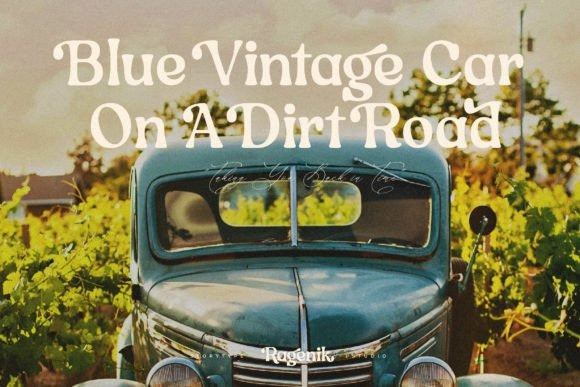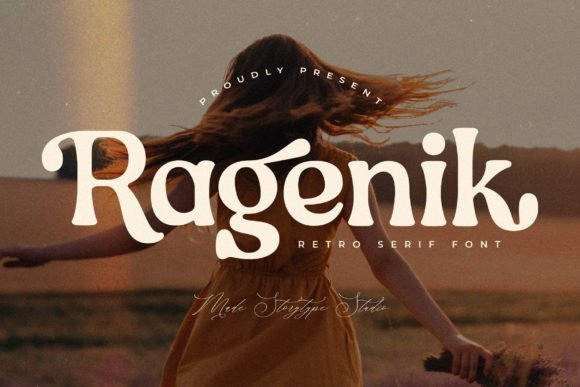
Ragenik Font
Ragenik Font is a modern and classy serif font perfect for elegant and luxury logos, book or movie title designs, fashion brands, magazines, clothes, lettering, quotes, and so much more.